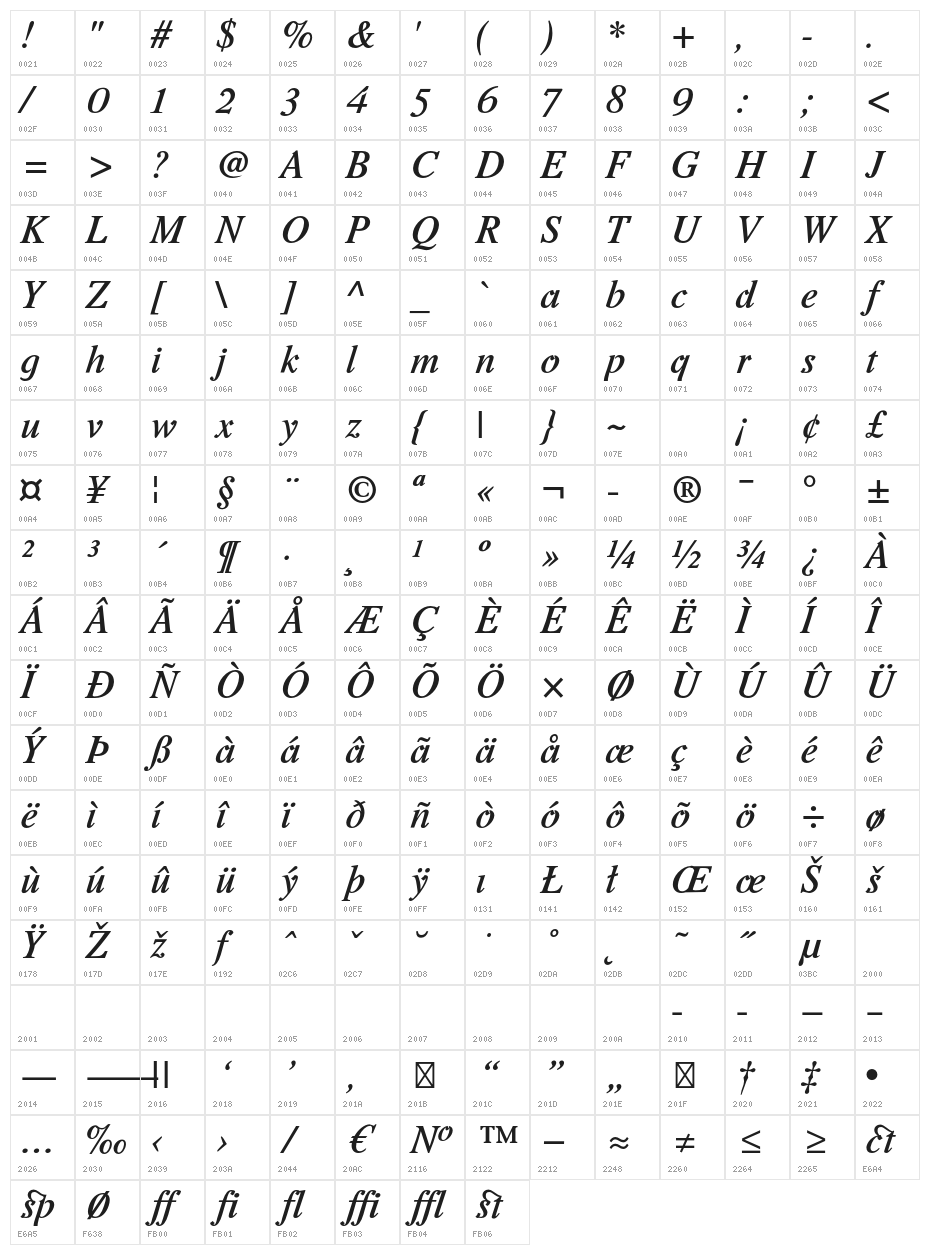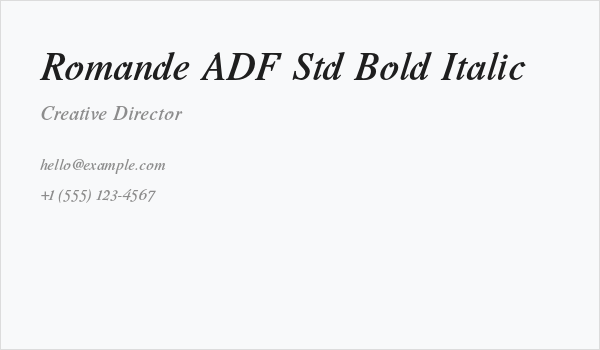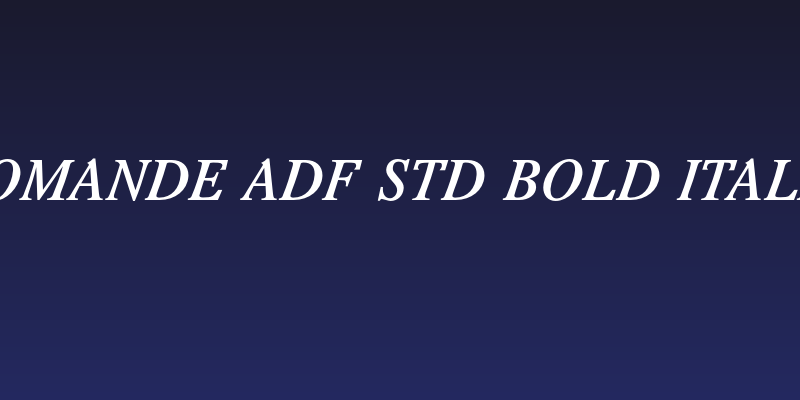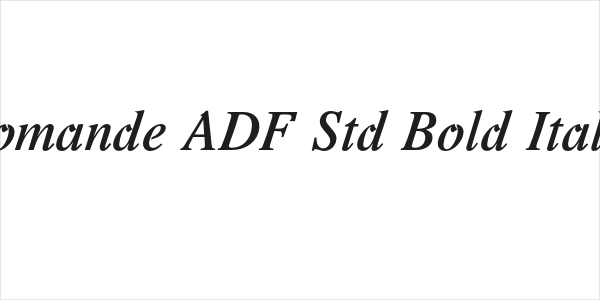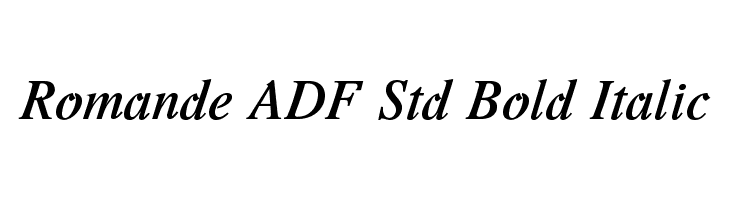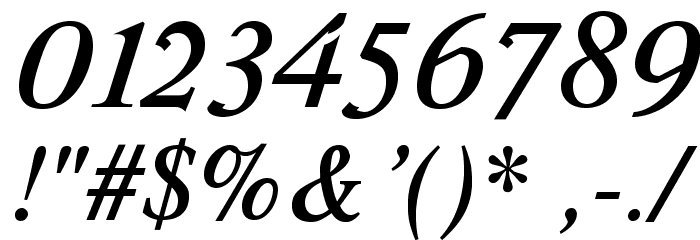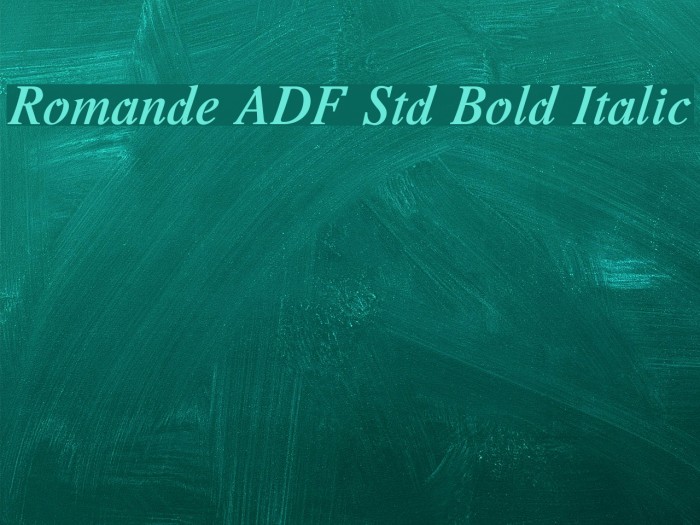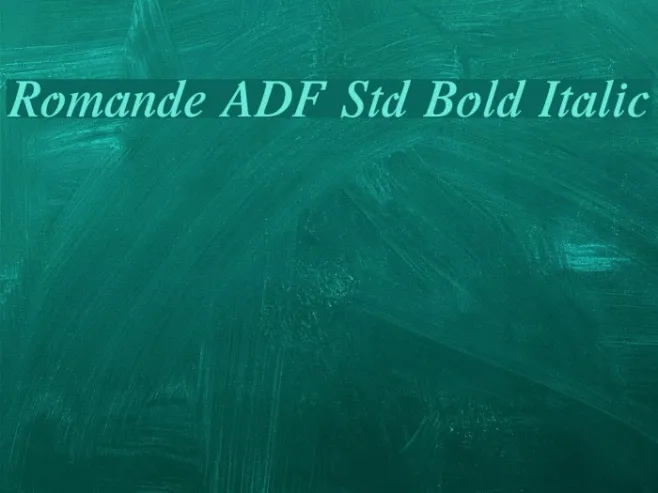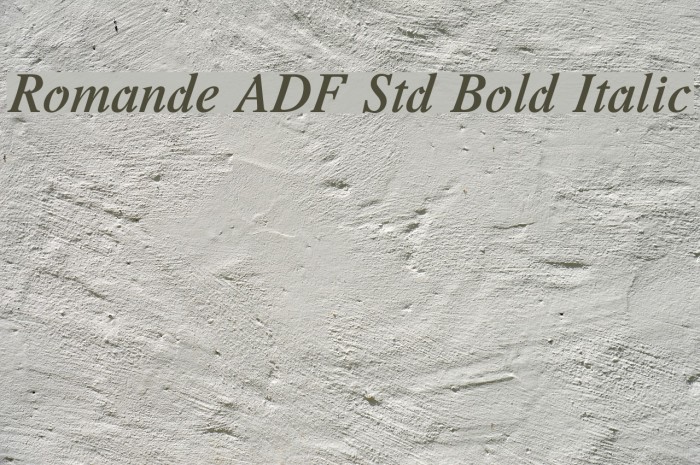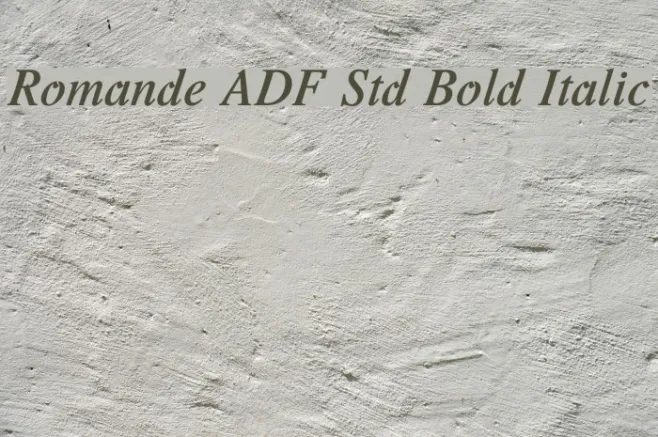
Romande ADF Std Bold Italic Font
Romande ADF Std Bold Italic Description
This font exhibits a classic serif style with a bold and italicized appearance, offering a sense of elegance and sophistication. The characters are well-defined with a slight slant, enhancing the italic effect. The serifs are pronounced, providing a traditional look that is both formal and readable. The bold weight adds to its prominence, making it suitable for impactful text. The numerals and special characters maintain the same stylistic features, ensuring consistency across all glyphs. This font is versatile, suitable for both digital and print media, and can be used in various design contexts where a touch of formality is desired.
| Overall Style | Classic |
| Use Case | Headlines, Body text, Logos |
| Proposed Projects | Ideal for book covers, formal invitations, branding materials, and editorial design. |